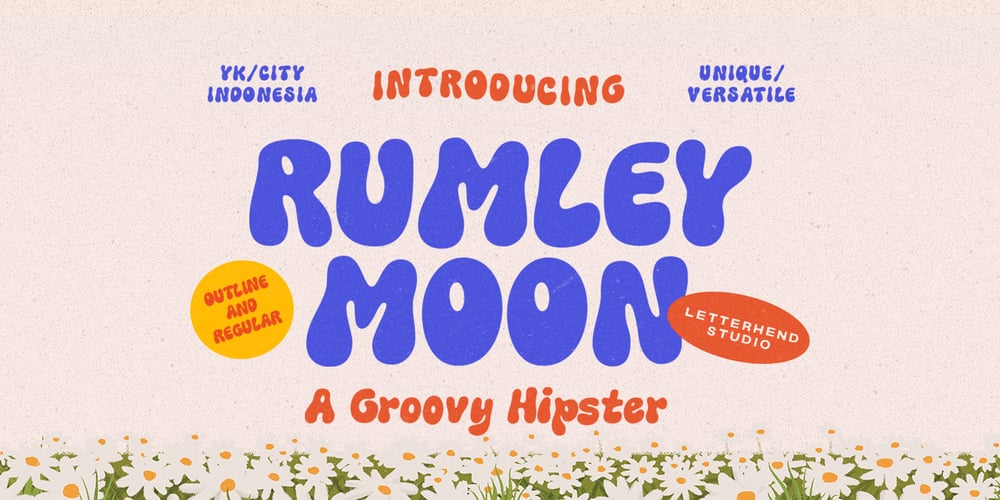
Rumley Moon
Rumley Moon font
Rumley Moon Font Family was designed by Hendry Juanda and published by Letterhend. Rumley Moon contains 2 styles and family package options. Rumley Moon is a versatile bold font with unique letterform. This font will bring you back to retro feel.This font perfectly made to be applied especially in logo, and the other various formal forms such as invitations, labels, logos, magazines, books, greeting / wedding cards, packaging, fashion, make up, stationery, novels, labels or any type of advertising purpose.Features : Regular & outline version Uppercase & lowercase Numbers and punctuation Multilingual PUA encoded We highly recommend using a program that supports OpenType features and Glyphs panels like many of Adobe apps and Corel Draw, so you can see and access all Glyph variations.